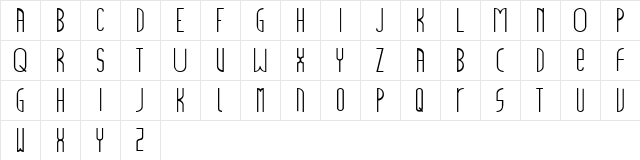
mainstreet Regular
Design Context for mainstreet Typeface
mainstreet is a composed and adaptable typeface that performs quietly and consistently across a wide range of design contexts.